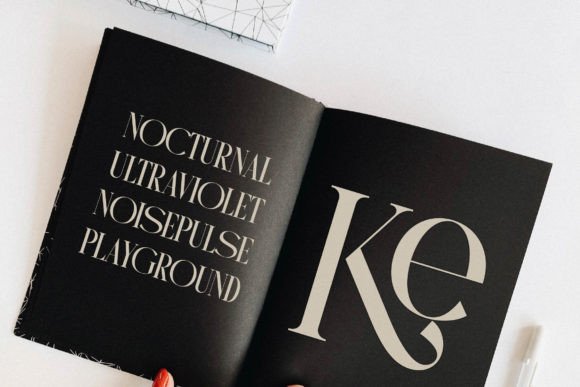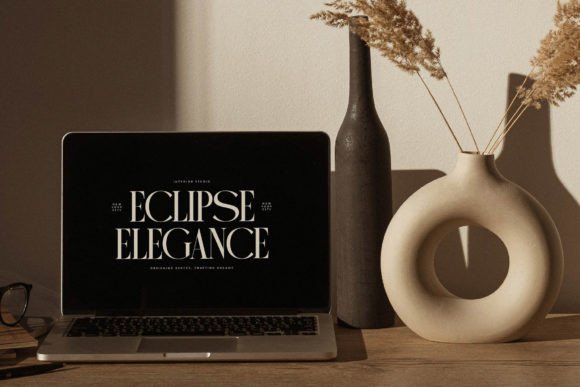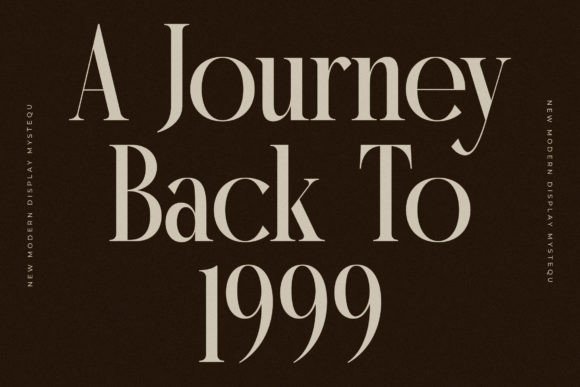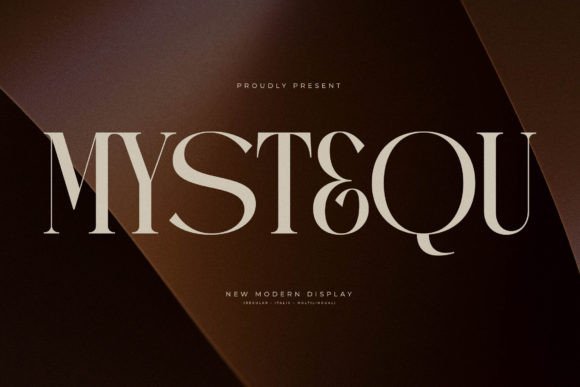
Proudly present Mystequ Typeface , created by Storytype, A serif modern and classic typeface that has own unique style & modern look.
This typeface is perfect for an elegant & luxury logo, book or movie title design, fashion brand, magazine, clothes, lettering, quotes, and so much more .